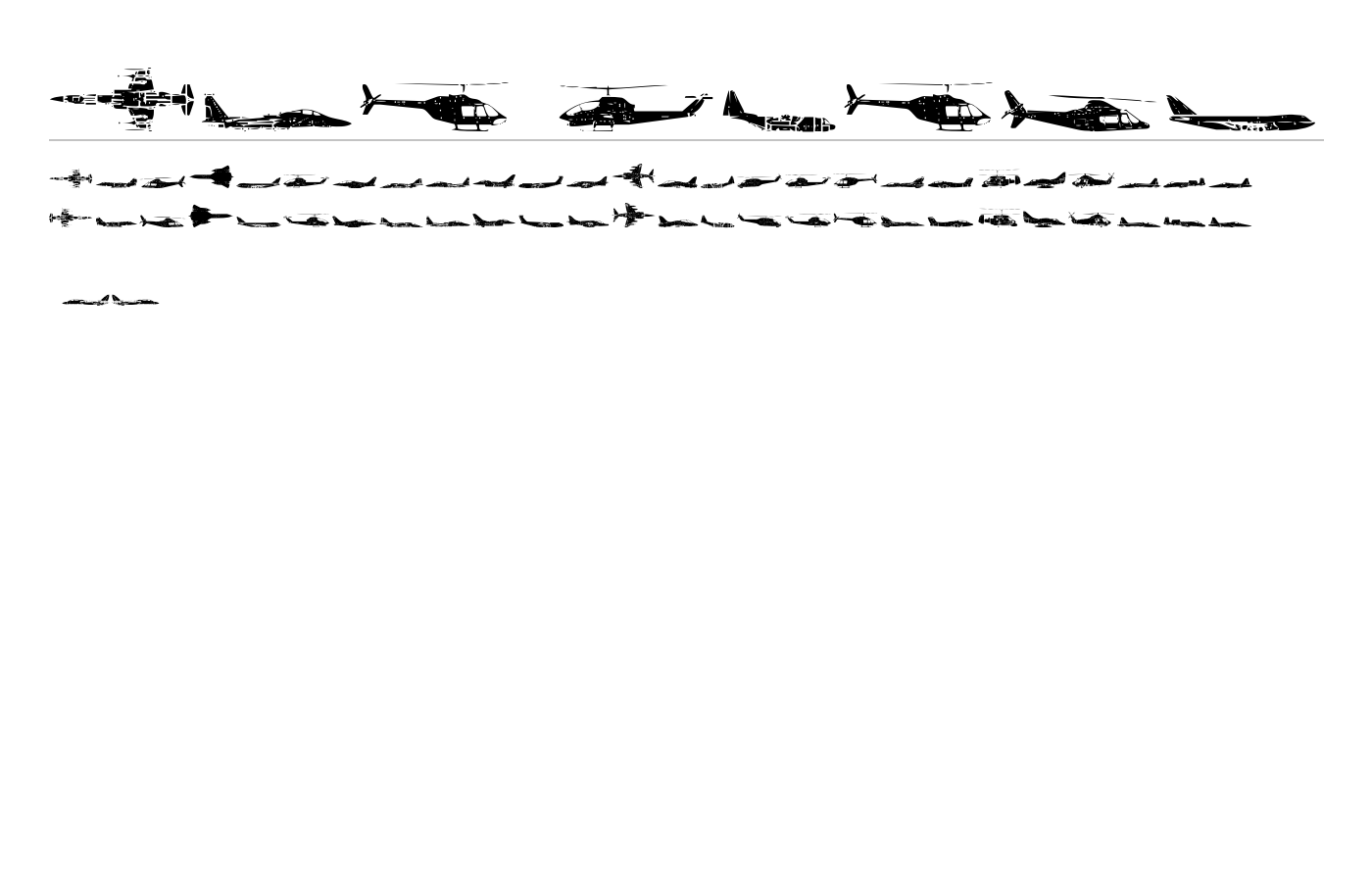
Air Force Font is a unique dingbat-style typeface featuring detailed silhouettes of various aircraft, including jets and helicopters. This highly specialized symbol font is perfect for military, aviation, or aerospace-themed designs, adding an authentic and bold visual impact. Its strong, graphic elements make it ideal for logos, posters, and branding where a distinctive and thematic presence is needed.
Air Force Font